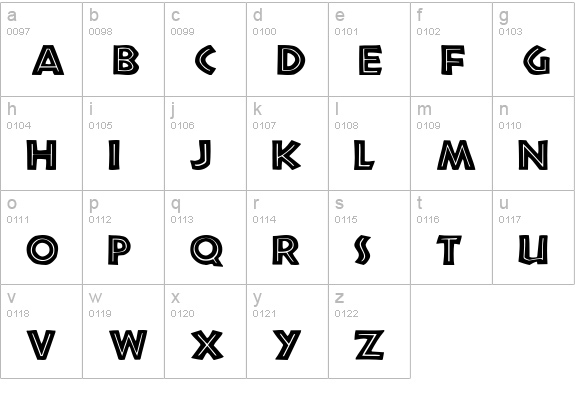
African Font Details
Introducing the captivating African font, a truly mesmerizing typeface that embodies the rich and vibrant culture of the African continent. This unique font is a celebration of the diversity and beauty found in African art, music, and design. With its intricate and ornate letterforms, the African font will transport you to the heart of Africa, evoking a sense of adventure and exploration. Each character is meticulously crafted, paying homage to the traditional African patterns and motifs that have been passed down through generations. But what truly sets the African font apart is its accessibility. We believe that art and creativity should be freely available to all, which is why we are proud to offer this stunning font as a free download at FontsMarket.com. Now, everyone can experience the beauty and power of African design through this captivating typeface. Whether you're designing a logo, creating a poster, or adding a touch of African flair to your digital projects, the African font will be your perfect companion. Its versatility and striking presence make it ideal for a wide range of applications, allowing you to bring a touch of African heritage to any design project. So, why wait? Embrace the spirit of Africa with the African font, and let your creativity soar. Download it for free at FontsMarket.com and embark on a journey that will transport you to the vibrant and awe-inspiring landscapes of the African continent.